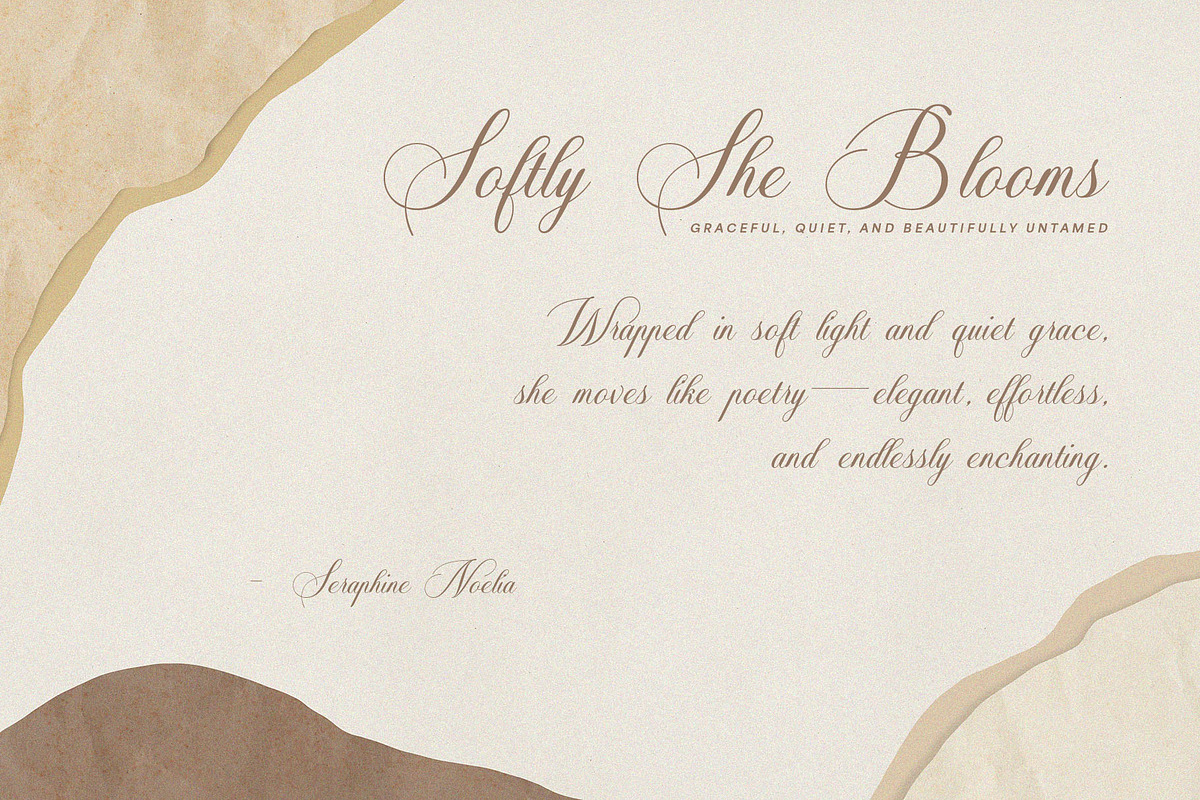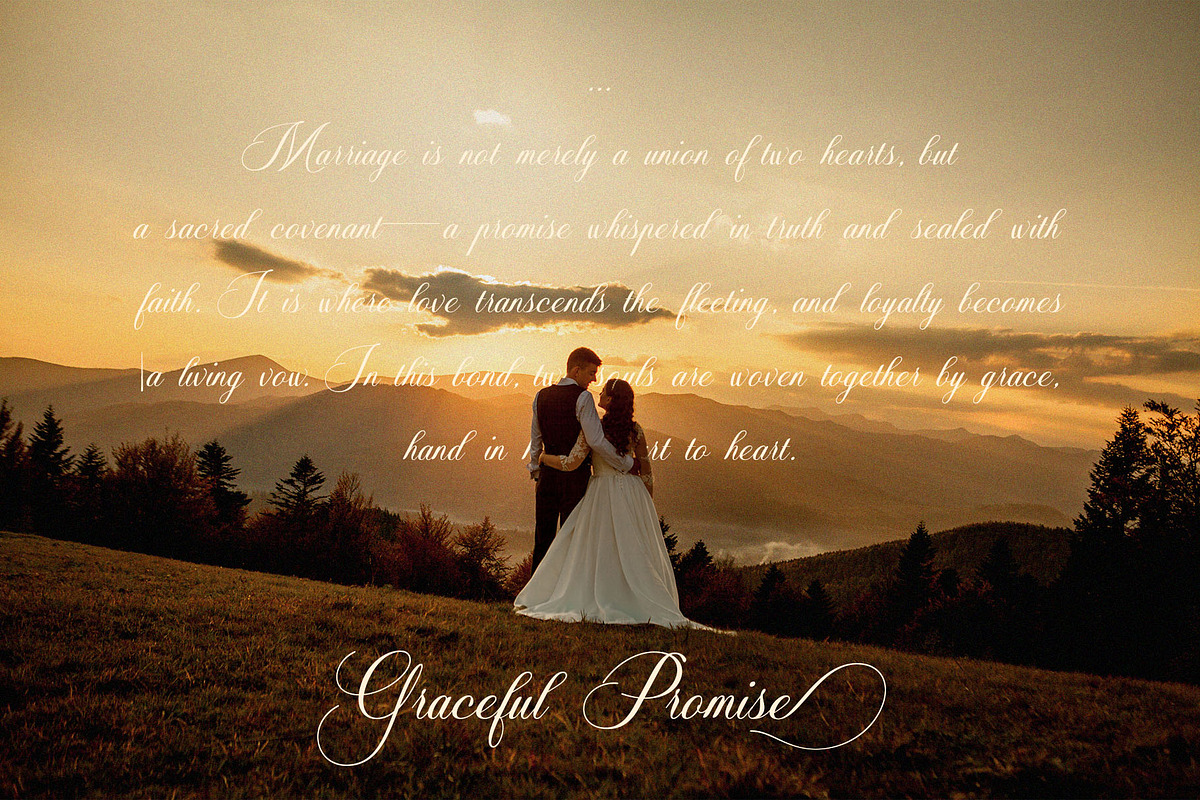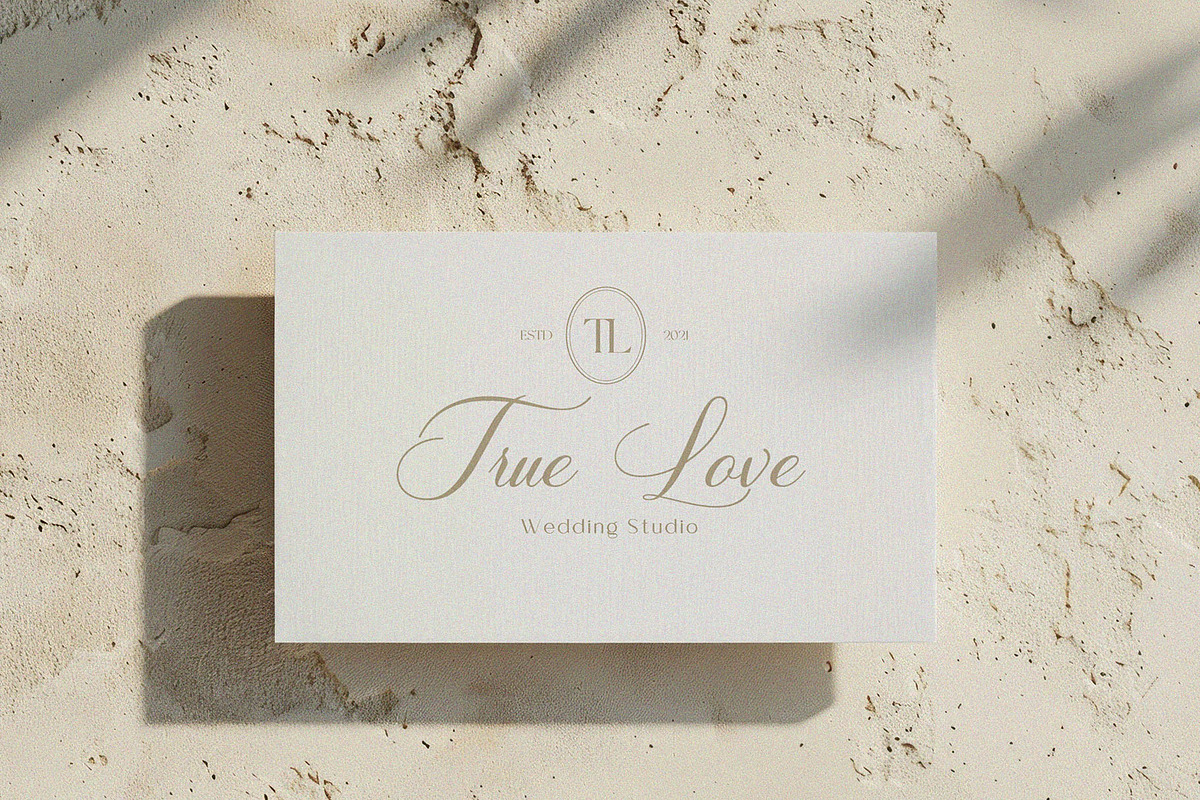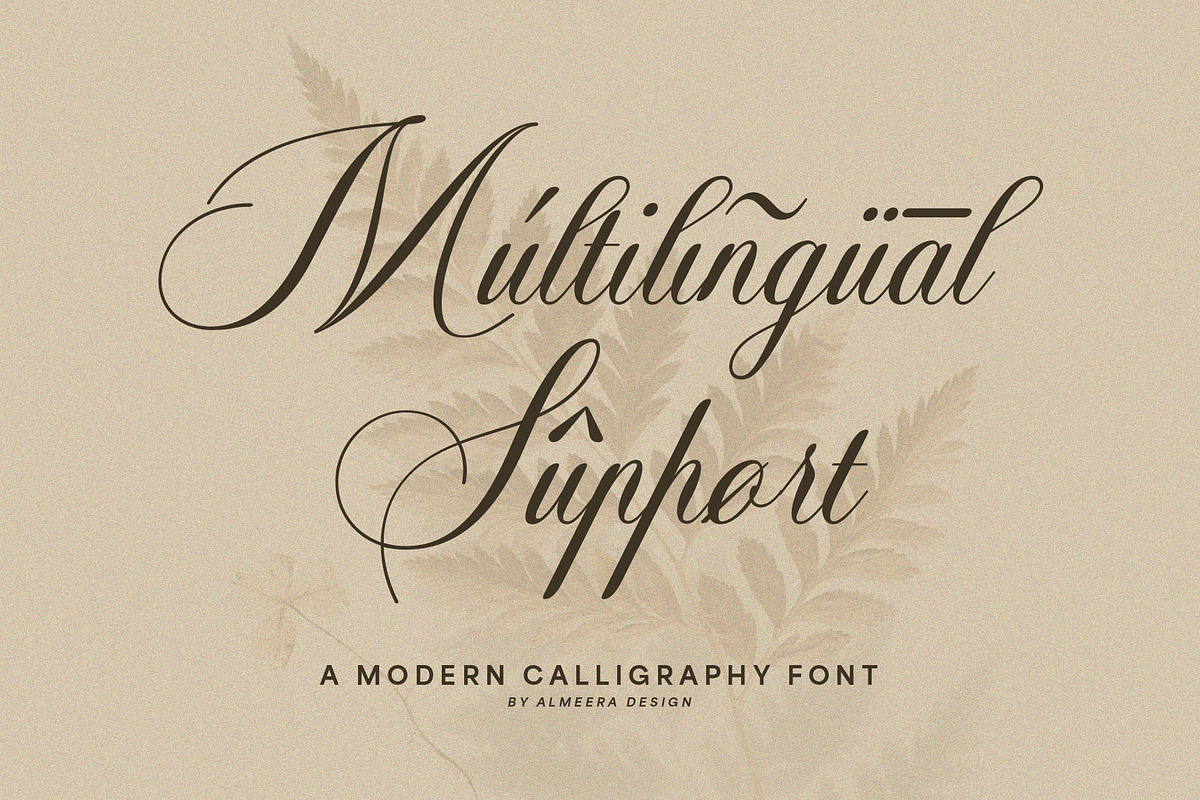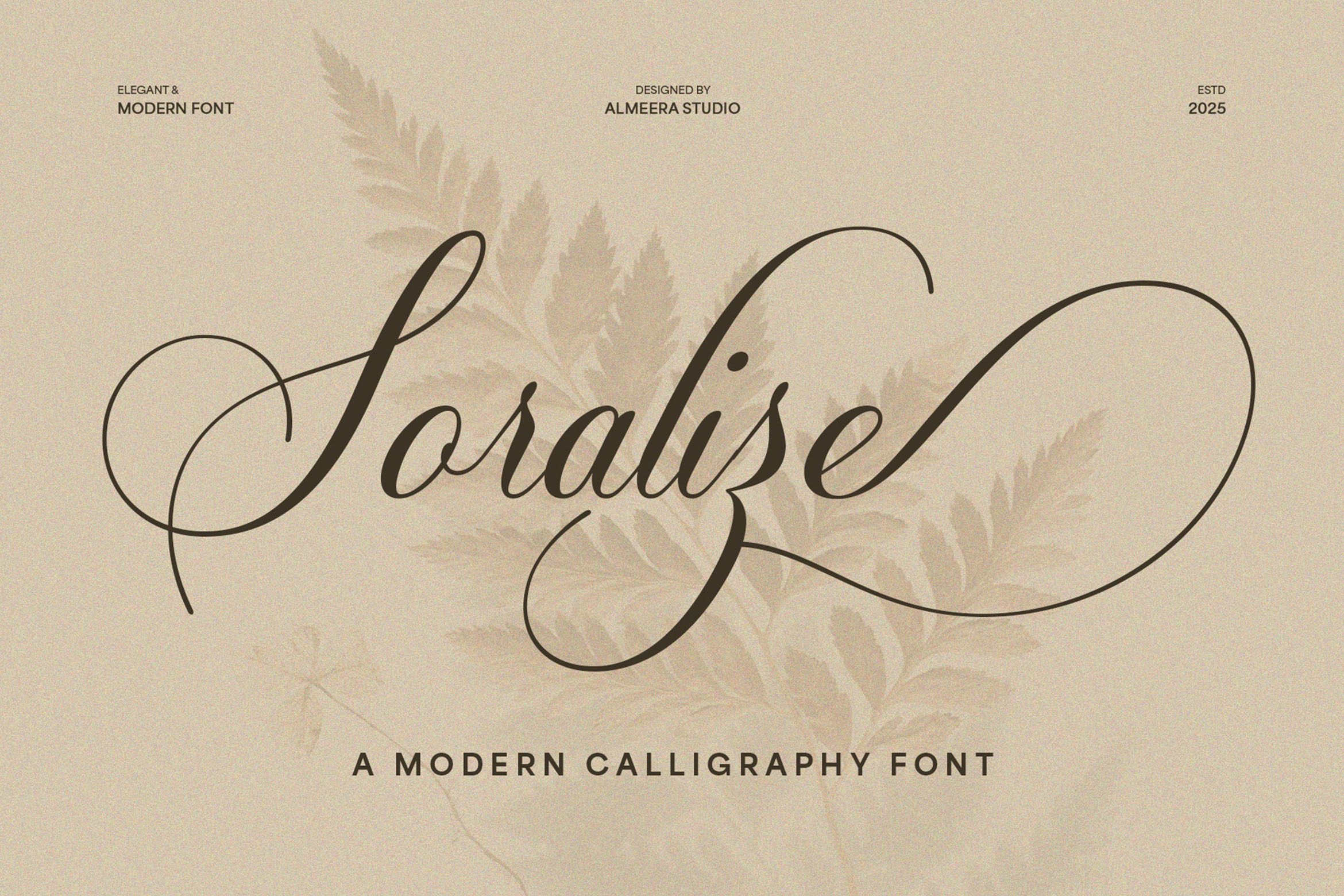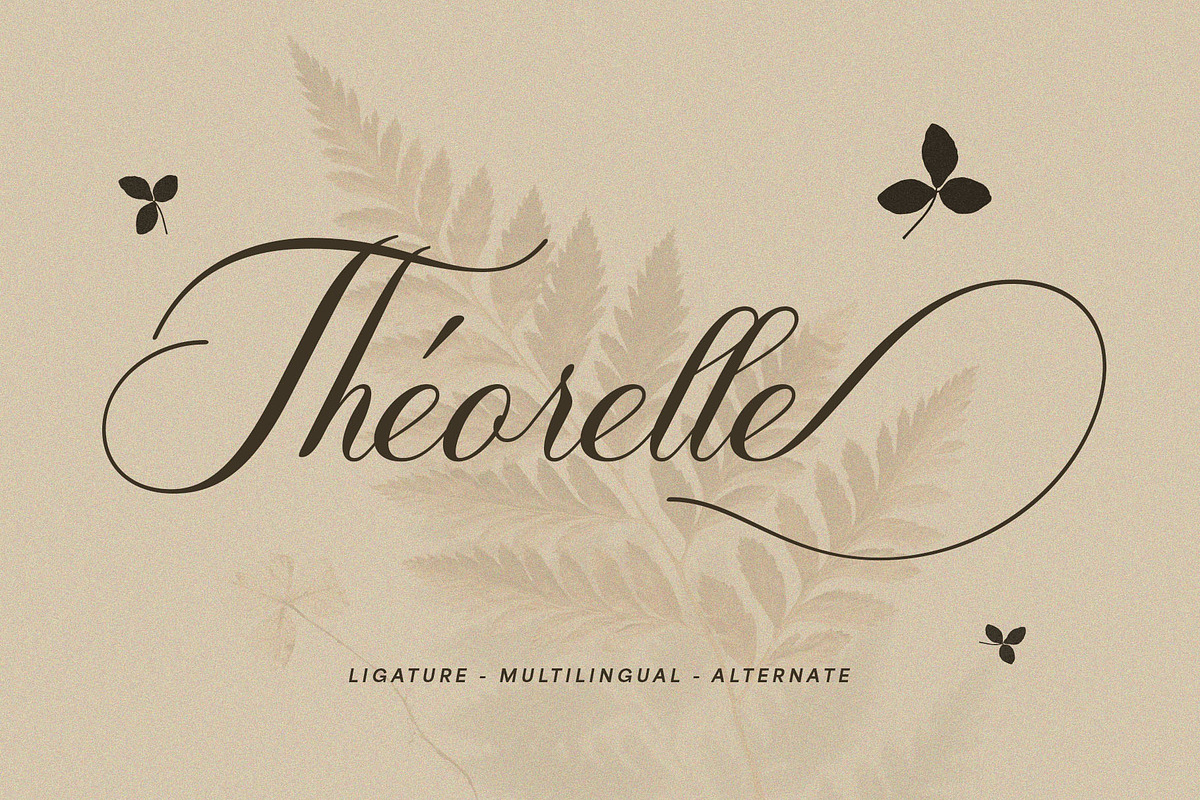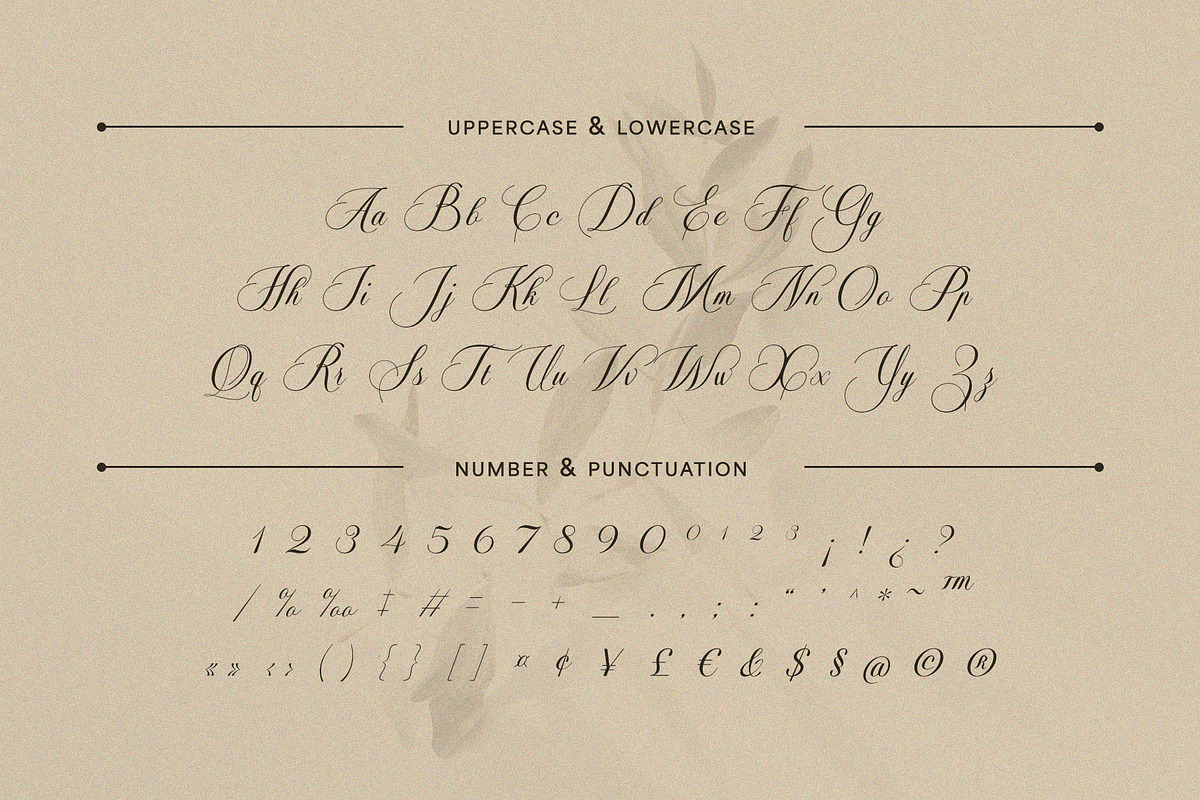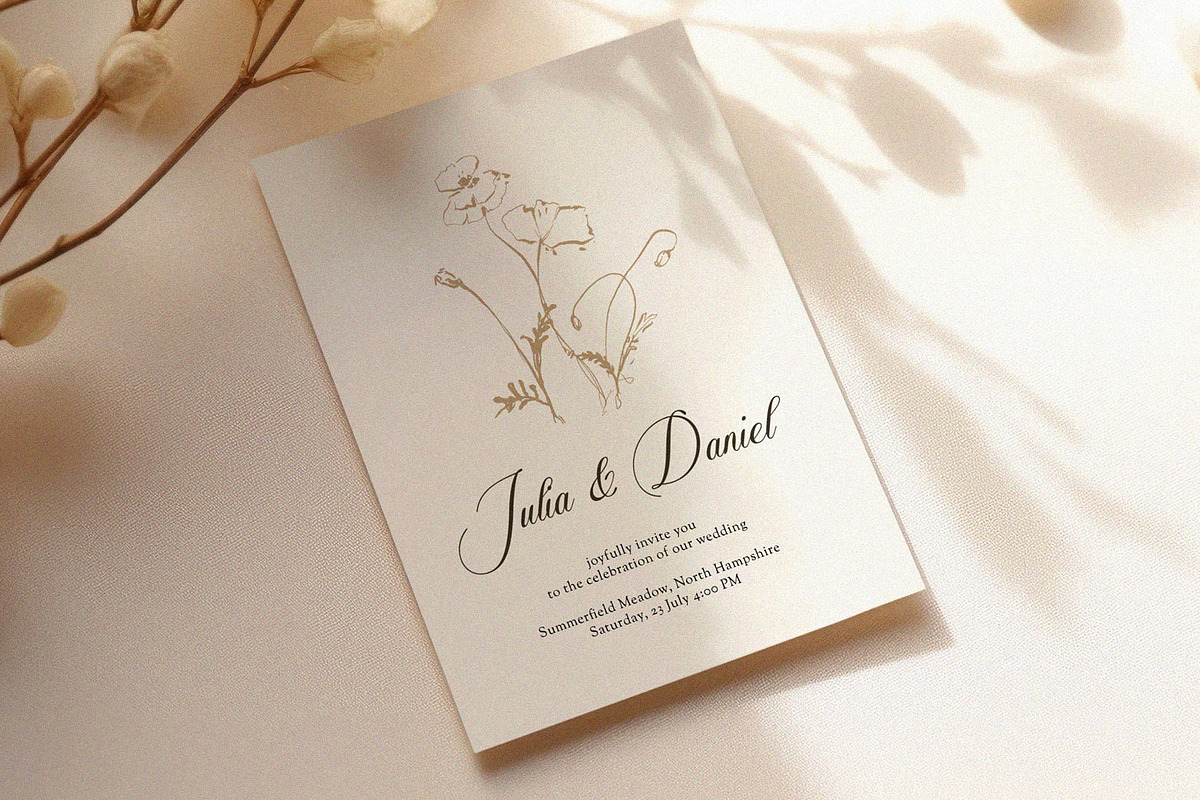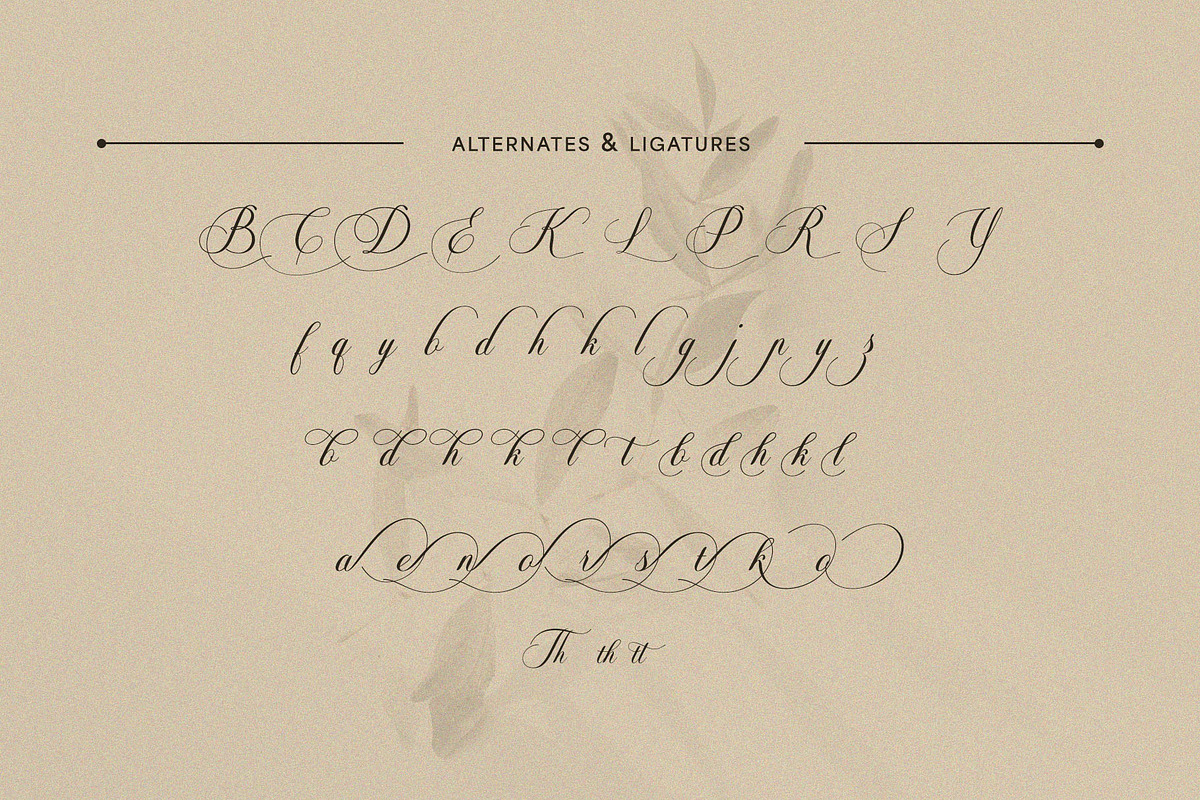
Soralize - A Modern Calligraphy Font
Introducing Soralize, a truly elegant and modern calligraphy font that breathes sophistication and artistic grace into every design. Perfect for wedding invitations, luxury branding, feminine logos, greeting cards, fashion labels, and signature designs, Soralize features flowing lines, delicate swashes, and exquisite ligatures that mimic authentic hand-lettering. This versatile script font offers a timeless yet contemporary feel, ensuring your typography stands out with unparalleled beauty and refined charm. Soralize is crafted to convey warmth, authenticity, and a touch of personal artistry, making it an essential asset for designers seeking an elegant and expressive handwritten aesthetic.